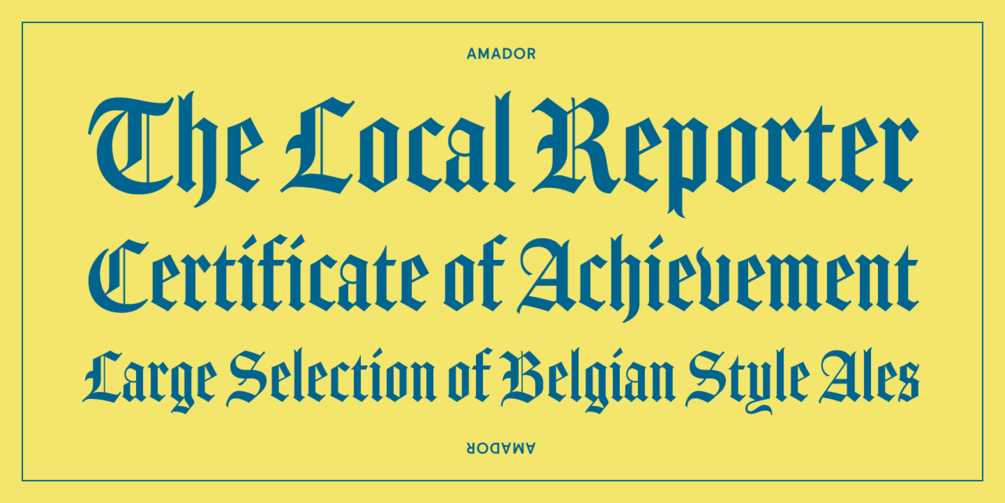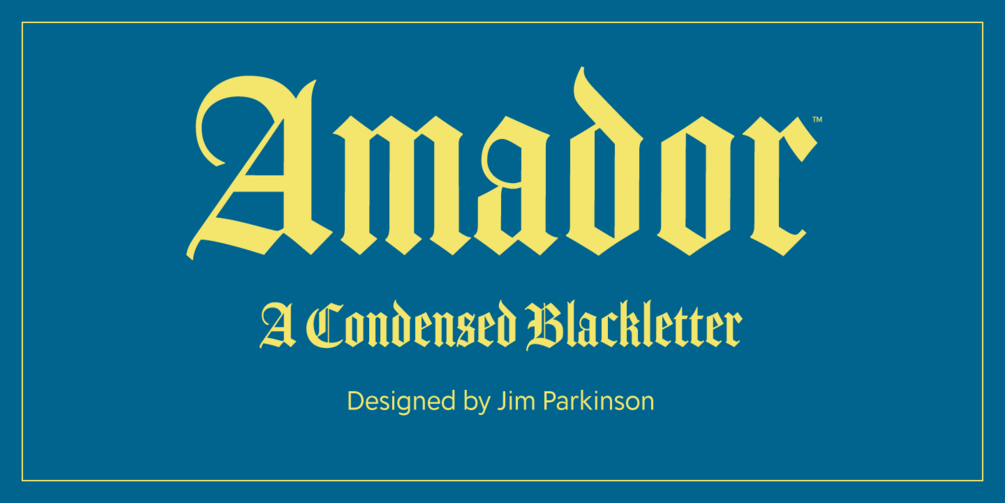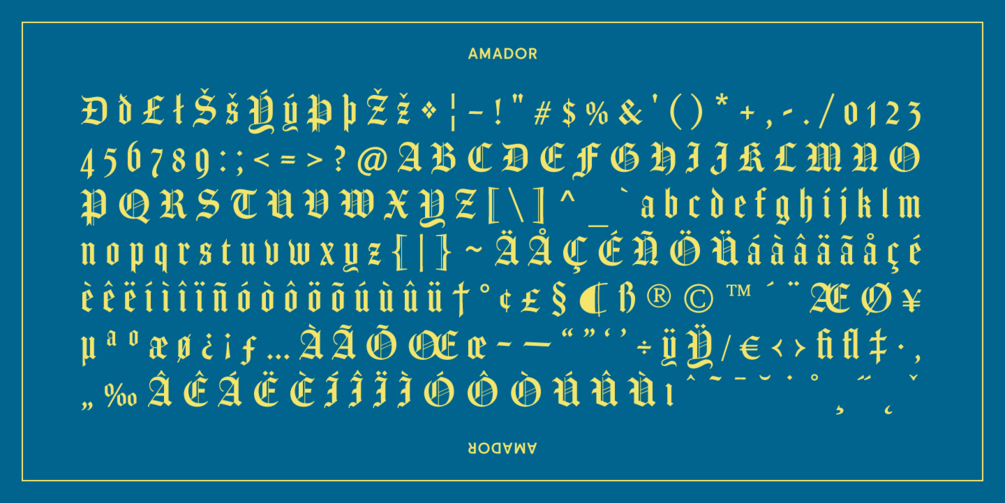
Amador by Jim Parkinson is primarily a condensed English blackletter type, a littera oxoniensis but influenced by the spirit of the Arts and Crafts movement. The works of Frederic Goudy and Rudolf Koch are reflected in this design, culminating in a unique blend of calligraphic styles judiciously tempered by Parkinson’s own experience creating numerous blackletter nameplates for newspapers spanning several decades of his prolific career.
This update (v 2.2) to Amador expands the glyph repertoire to over 1,000 glyphs supporting 224 languages, including Vietnamese, African, and Oceanian languages. Among the bevy useful of new glyphs, are a selection of stylistic alternates, swash variants, ligatures, catch words, arrows, fractions, symbols, and more. Powerful Opentype features are built in to make accessing all those glyphs quick and convenient.
This condensed blackletter display type is perfect for use in logos and headlines. Put it to work on certificates, beer labels, posters, and more for its old world heritage and rich pedigree. •!